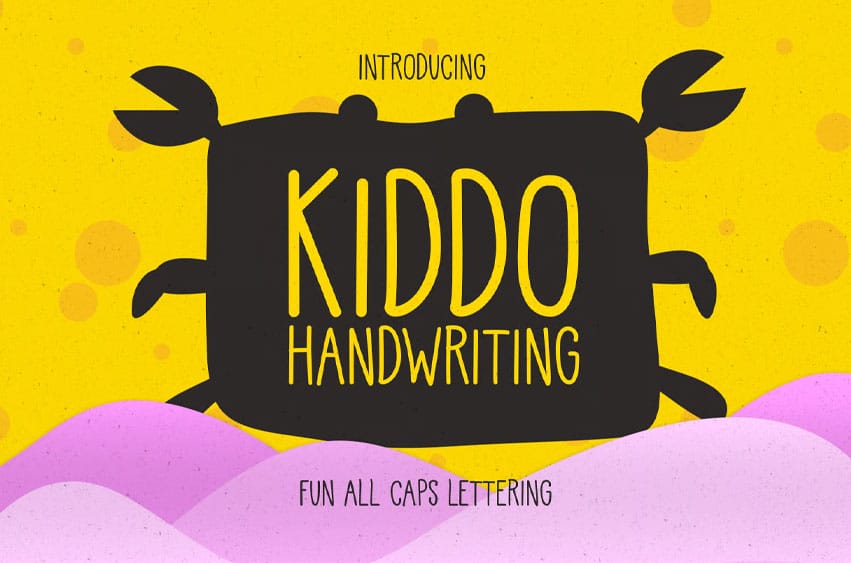
Kiddo Handwriting Font is modern kid handwriting font, simple, modern, and easy to read.
Every letter has a unique and beautiful touch, which will make your design come alive!